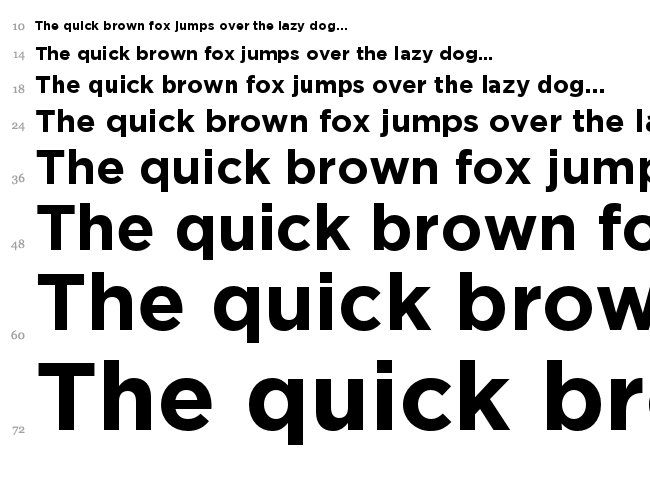
Gotham Bold Font Ttf
For more detailed information take a look below. Gotham font is the regular typeface that was available in both adobe and google fonts.
Logo, sans serif, display.font examples of gotham bold are available at azfonts.
Font publish year is 2000. View sample text, character map, user rating and review for gotham bold. The bold architectural capitals that inspired the iconic gotham typeface are merely the cornerstone of a versatile family of fonts.
About the font gotham bold italic. Font gotham with the bold characteristic belongs to the gotham font family. Four different widths in a range of weights, plus deep character sets, extended language support, and versions for different media, combine to.
Gotham htf bold 2 font info. You can use the gotham condensed bold to create interesting designs, covers, shop and store name and logos. The font family is gotham.
About the font gotham bold.